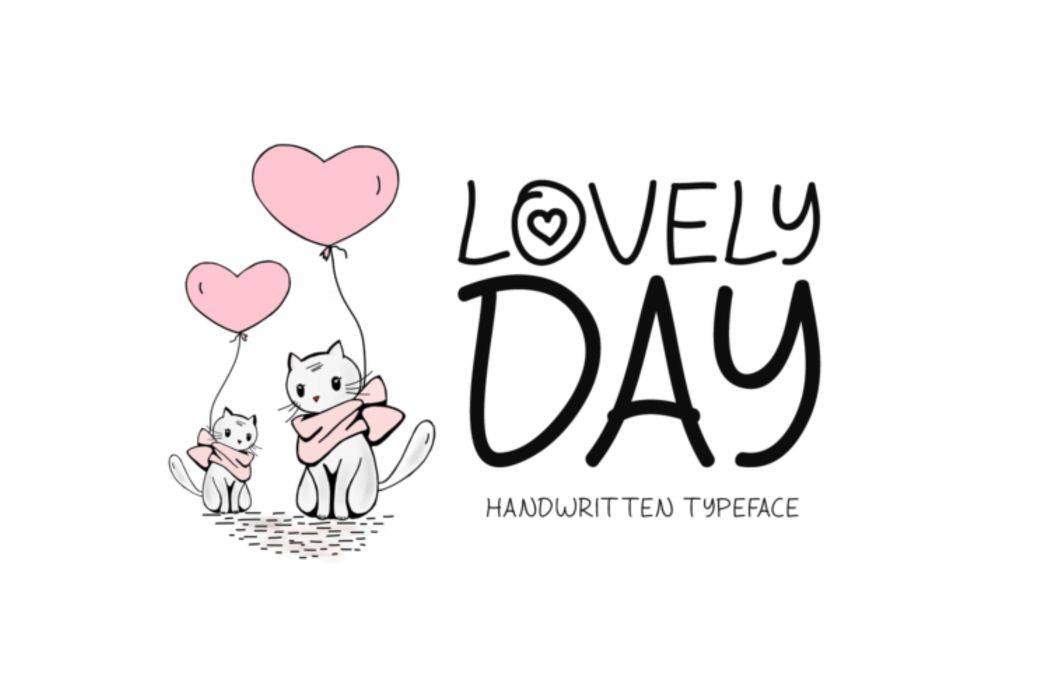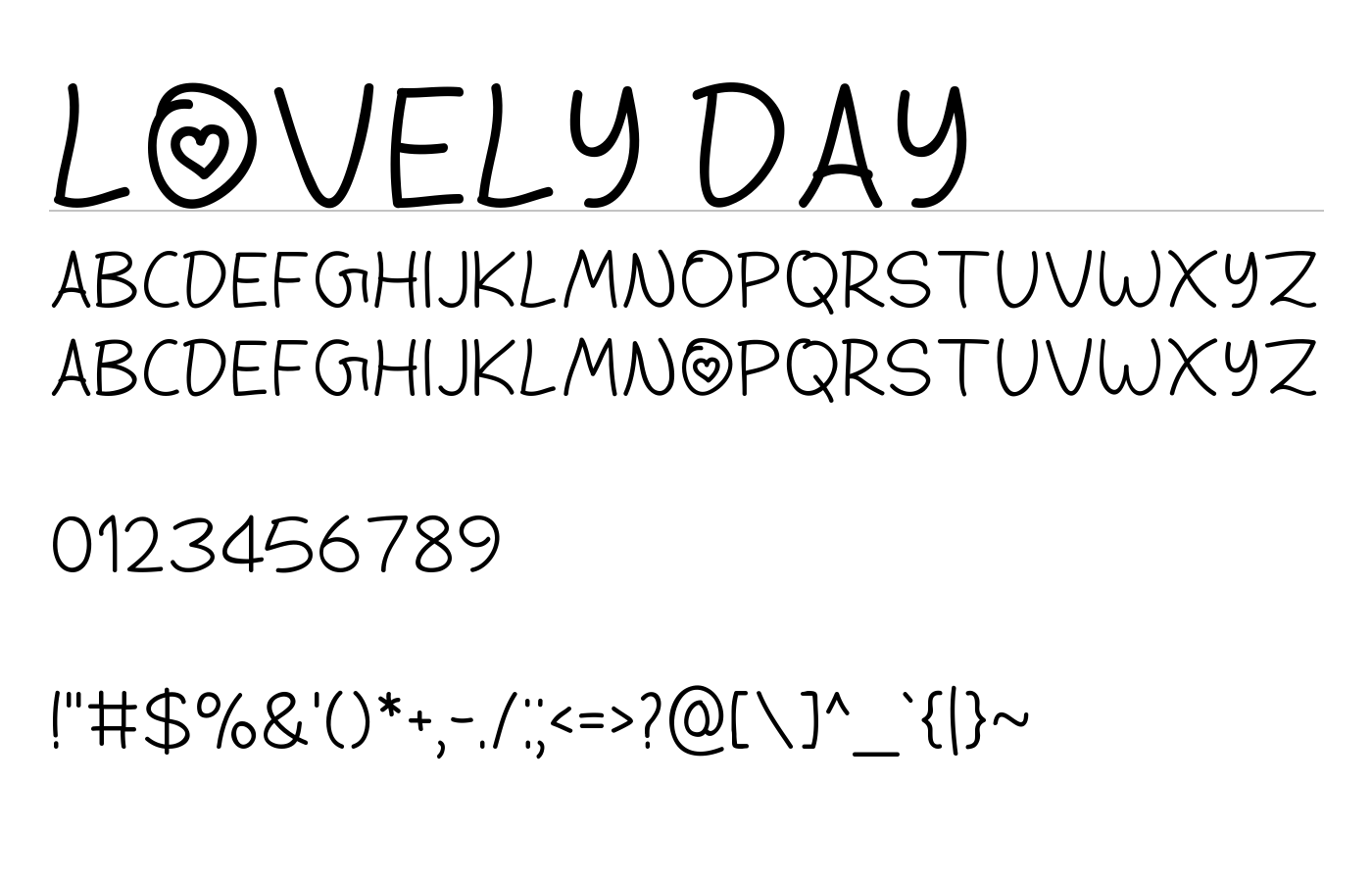
Lovely Day is a playful and charming handwritten font with a casual, friendly feel. Its light weight, simple strokes, and unique heart-shaped details in some letters make it perfect for designs that want to convey warmth, creativity, and approachability. This font works well for children's materials, greeting cards, playful branding, and informal invites where a personal, joyful touch is needed.
Lovely Day Font
About Lovely Day Font